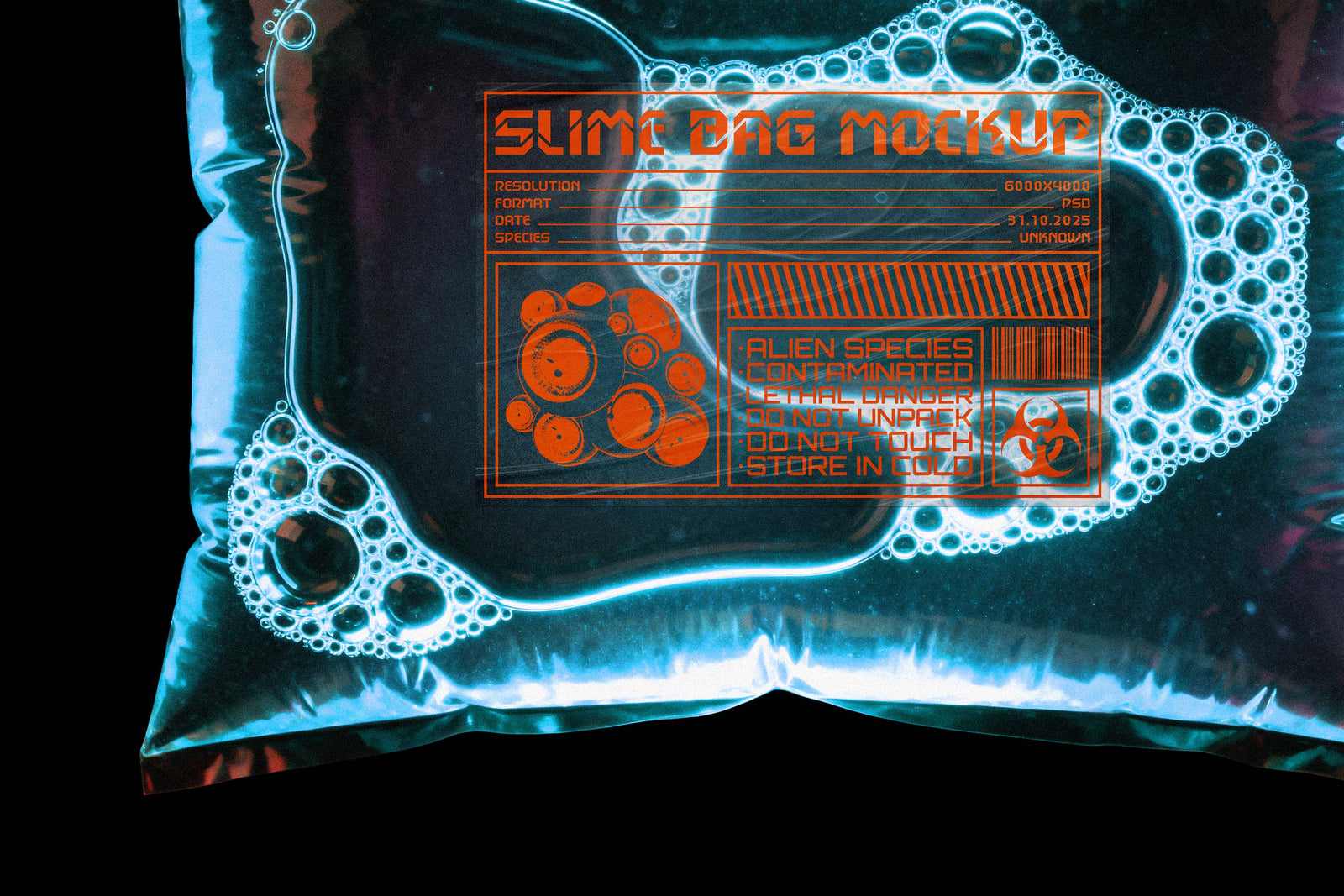
Dirtbag TM by Type Mania
Looks like someone sketched a headline on a napkin and kept it. Dirtbag TM is a handmade display face that celebrates imperfect edges and playful rhythm. Includes OTF/TTF formats, contextual alternates that rotate through three stylistic sets in a 1-2-3 pattern, and roughly 300 glyphs for messy headlines. Use it for zines, posters, or that identity that needs to look accidentally cool.
Lavara - Refined Serif Display Font by Afterimagine
Think of a tuxedo with sharp serifs. Lavara is a refined display serif with elegant proportions, high-contrast strokes and a bold vertical stance. Delivered in OTF/TTF with multiple weights and ligatures, plus full Latin support and about 450 glyphs. Perfect for fashion editorials, luxe packaging or magazine mastheads that want authority without being boring. Pair with minimal layouts for maximum drama.
Slime Bag Mockup by Pixelbuddha
This Slime Bag Mockup comes as a layered PSD with Smart Objects, high-res 4000x3000 renders and editable shadows and reflections. Swap designs in seconds, toggle background and texture layers, and export realistic shots for portfolios or quirky packaging pitches. Great when you need a tangible prop that still behaves in Photoshop.
Black Lined Photo Effect by Pixelbuddha
The Black Lined Photo Effect is a layered PSD with Smart Object support, adjustable line strength, grain and tonal controls for quick edits. Drop in JPEGs or PSDs, tweak masks and levels, and you’ve got moody editorial imagery ready for posters or social feeds. Fast to use, slow to get boring.
Street Billboard Mockup by Minal Studio
This Street Billboard Mockup is a realistic, high-quality PSD with editable Smart Objects, on/off layers for signs and weathering, and photorealistic light/shadow control. File optimised for large prints — think 6000x4000 px renders — letting you show clients how ads behave in the wild without leaving Photoshop. Perfect for campaigns and attitude-heavy promos.
HOM Magazine 03 Mockup by Mockup Flock
A magazine that hums. HOM Magazine 03 Mockup belongs to the House of Melody Collection and offers layered PSDs, Smart Object pages, and multiple cover/inner spread presets. High-resolution scenes and adjustable lighting let type and photography find their rhythm. Use for editorial layouts, portfolio spreads or mock pitches where every spread needs to feel like it’s got a soundtrack.
Venom Text Distortion Effect by Divided.co
Text that looks like it’s melting with attitude. Venom is a Photoshop effect that turns typography into dripping, radioactive distortion via Smart Objects and layered masks. Includes presets, editable colour maps and texture overlays to get everything from subtle goo to full-on mutation. Drop logos or headlines, tweak the drip and export. Fantastic for posters, album art or anything that wants to ooze energy.
Acid Faded Text & Logo Effect by Pixelbuddha
The Acid Faded effect is a PSD with Smart Object support, gradient maps, and layered dust/grain for convincing fade and bleed. Works with vector logos or raster type, includes adjustable colour presets and export-ready layers. Ideal for editorial covers, promos and gritty branding with a neon hangover.
11 Orange Grunge Frame Tapes by Parisa-Artstudio
This pack includes 11 PNG frame tapes, transparent backgrounds, 3000x2000 px files and ready-to-drag overlays for any image. Use them to edge photos, create instant nostalgia or rough up layouts with a single layer. Great for social posts, posters or that indie zine aesthetic that screams ‘we made this between gigs’.
SP Valley Couple Font by Sup-Port Studio
Two fonts that hang out like an old-school couple: a sans with attitude and a flowing script. SP Valley Couple Font bundle includes TTF/OTF files, graphic templates, badge packages and complementary weights for pairing. Full Latin support and assorted ligatures make it easy to build vintage-modern identities. Use for logos, wedding invites or branding that wants a slightly nostalgic wink.